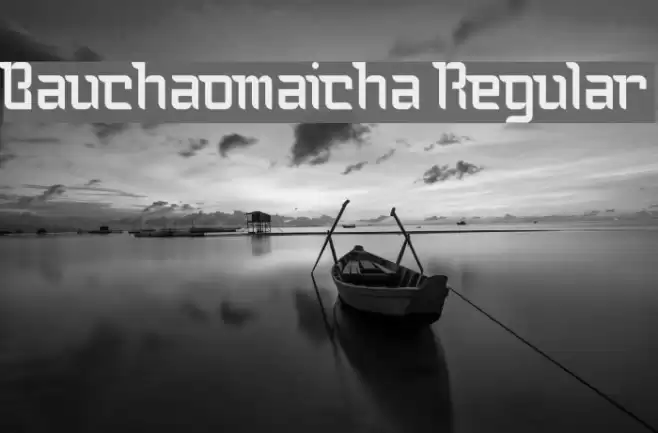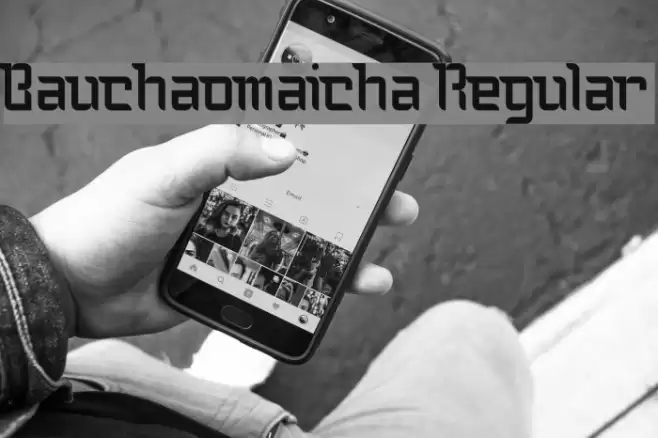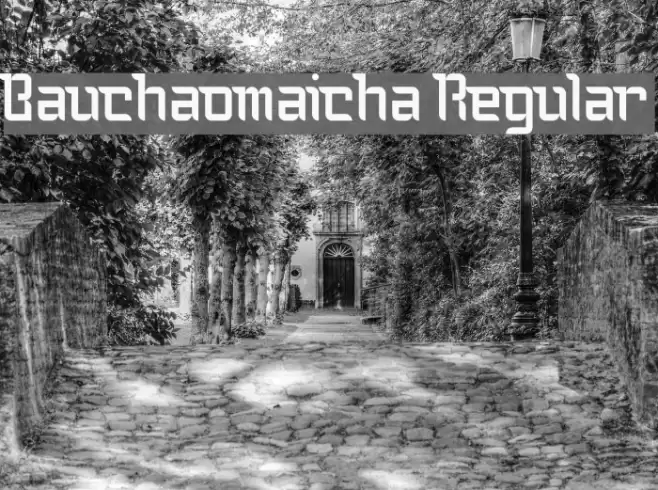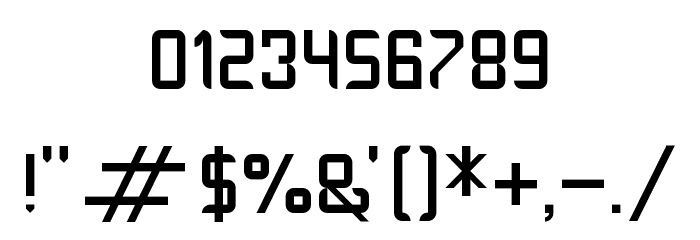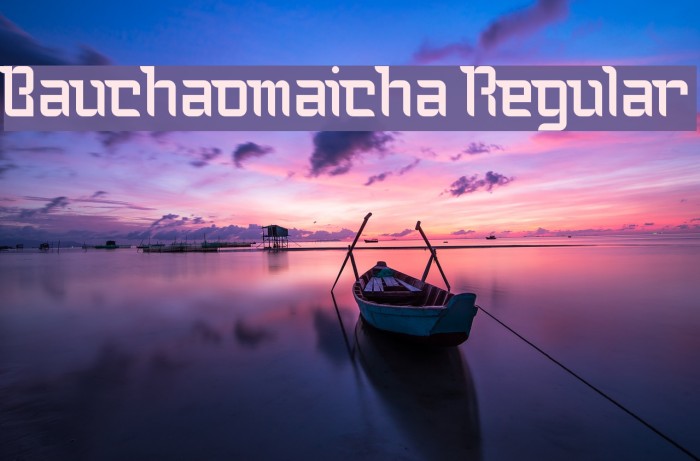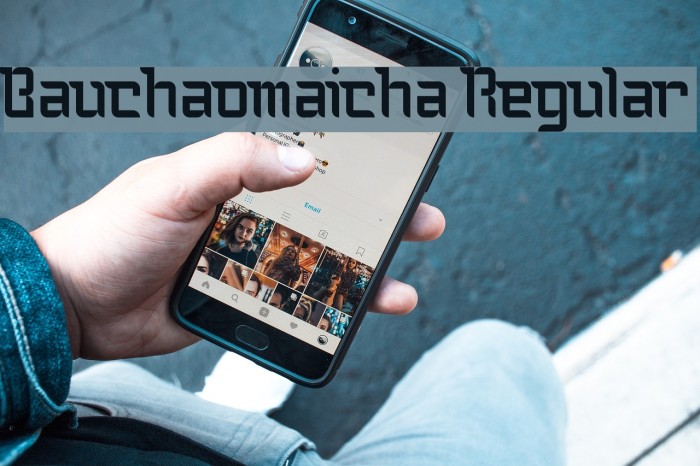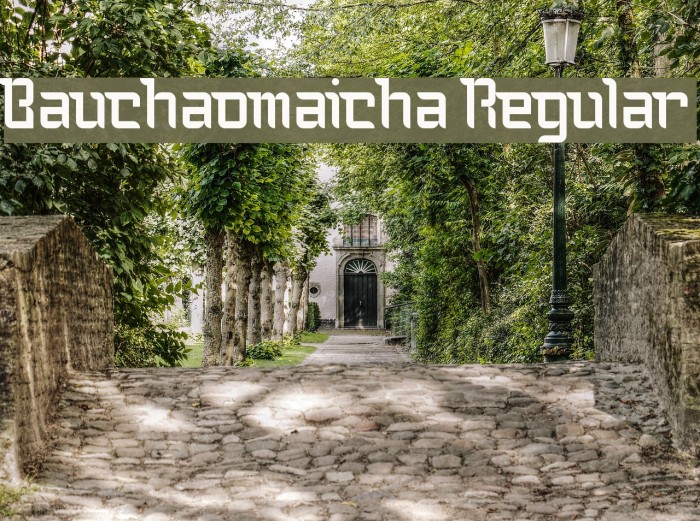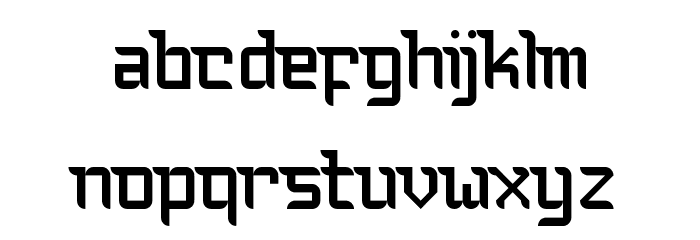
Bauchaomaicha Regular Font
Bauchaomaicha Regular Description
This font features a geometric and structured design with a modern twist. The characters are bold and have a distinct angular appearance, giving them a futuristic and tech-inspired look. The uppercase and lowercase letters maintain a consistent style, with sharp edges and clean lines. The numerals and special characters follow the same design principles, ensuring uniformity across all glyphs. This font's unique style makes it stand out, suitable for projects that require a contemporary and edgy aesthetic.
A bold, angular font with a futuristic and tech-inspired design from Uncategorized fonts.
- Proposed Projects: Ideal for technology branding, sci-fi themed designs, video game interfaces, and modern advertising campaigns.